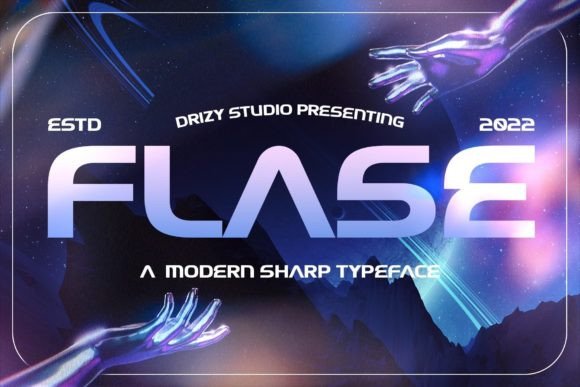
Behold, Flase Font, a captivating display font that will dazzle your designs with its modern and cool personality. Crafted by the talented artists at Drizy Studio, Flase was meticulously designed to embody the vibrant spirit of New York City, the city that never sleeps.
With its sleek, futuristic contours, Flase effortlessly adds an innovative flair to any project, whether you're creating logos, posters, social media graphics, or eye-catching headlines. Its fresh, distinctive style will ensure that your creations stand out from the crowd.
Flase is the perfect choice for designers seeking a font that exudes creativity and innovation. Its versatility knows no bounds, adapting seamlessly to a wide range of design projects. Whether you're working on a modern website, a sleek brand identity, or an unforgettable marketing campaign, Flase will elevate your designs to new heights.
Immerse yourself in the world of Flase and let its boundless energy and style ignite your imagination. From the bustling streets of New York City to the limitless expanse of your creative vision, Flase will be your trusted companion, transforming your designs into masterpieces.
The possibilities are endless with Flase. Embrace its distinctive charm and watch your creations come alive with a captivating allure that will leave a lasting impression on your audience.